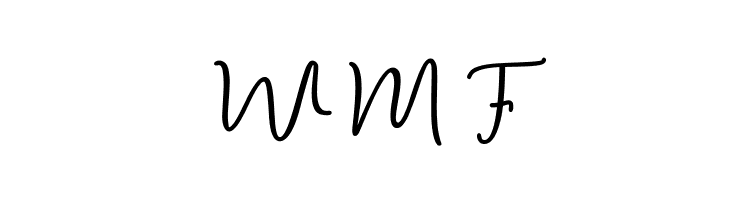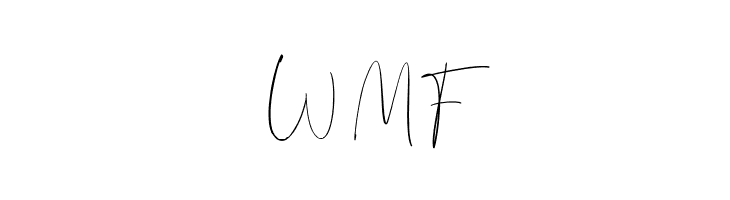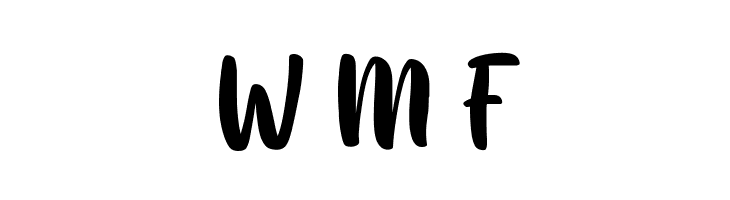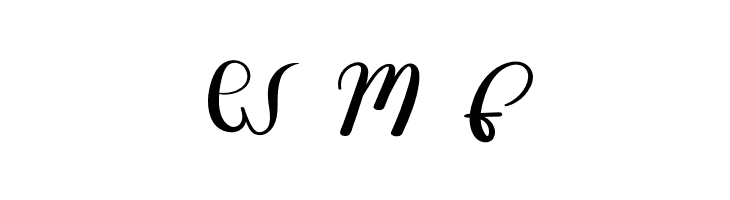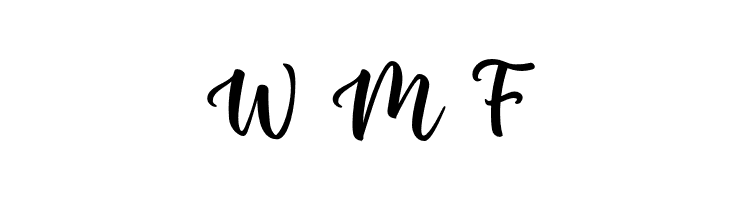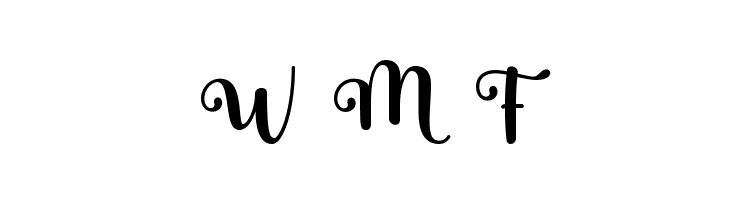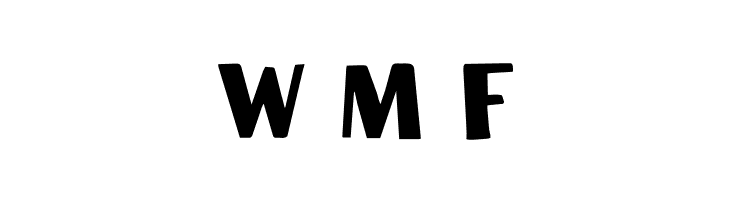
A playful and flowing script font with elegant curves and a modern artistic style.
A whimsical, cursive font with flowing, interconnected letters and dynamic stroke variations.
A graceful script font with fluid, connected strokes and a sophisticated style.
A bold, playful script font with a handwritten, fluid style.
A graceful script font with fluid, cursive strokes and elegant curves.
A cursive, handwritten-style font with elegant loops and swashes.
A playful and elegant script font with decorative swirls and loops.
A tall, narrow, and modern font with an elegant style.
A bold, decorative font with playful, exaggerated characters and unique leaf-like elements.